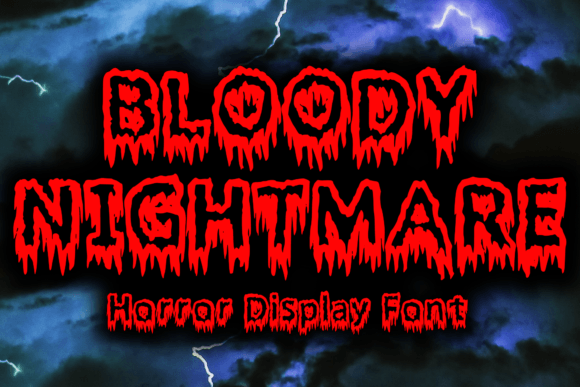
Unleash your deepest, darkest fantasies with Bloody Nightmare Font, the ultimate display font that will send shivers down your spine and leave you craving for more. Inspired by the chilling world of vintage horror movies, haunting comics, and the raw energy of Metal music, this font is a masterpiece of macabre artistry.
Picture this: a font that drips with the essence of fear, its every letter a sinister whisper from beyond the grave. Bloody Nightmare Font is not just a collection of characters; it's a portal to a realm where shadows dance and nightmares come alive. Its bold, dripping strokes evoke a sense of dread and suspense, drawing you into a world of untold horrors.
With Bloody Nightmare Font, you can unleash your creativity and conjure chilling designs that will haunt your audience's dreams. Whether you're a horror enthusiast, a lover of the macabre, or simply seeking a font that oozes personality, this font is your weapon of choice.
Craft bone-chilling book covers that will send shivers down readers' spines. Create Halloween decorations that will make trick-or-treaters scream with delight. Design t-shirts, posters, and other merchandise that will turn heads and spark conversations. With Bloody Nightmare Font, the possibilities are endless, and the only limit is your imagination.
So, if you dare to embrace the darkness, to delve into the realm of the unknown, and to create designs that will leave an indelible mark on your audience, then Bloody Nightmare Font is calling your name. It's more than just a font; it's a gateway to a world of creativity and horror that you never knew existed.
But be warned: once you enter the world of Bloody Nightmare Font, there's no turning back. Its allure is intoxicating, its power undeniable. You will become obsessed with its dark beauty, forever captivated by its haunting charm.
Are you ready to embrace the nightmare?